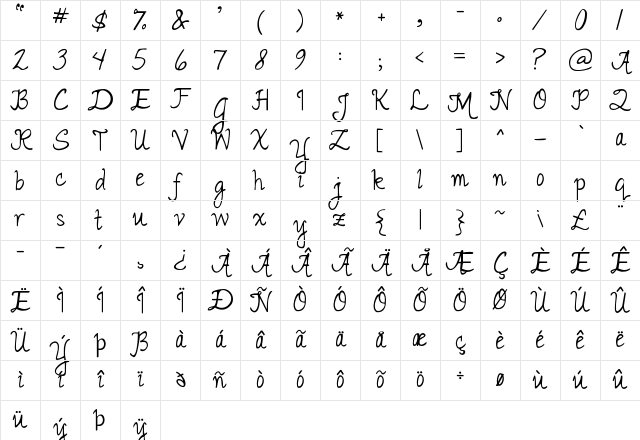
Janda Romantic Regular
Foundry: Kimberly Geswein
Designer: Kimberly Geswein
Design Context for Janda Romantic
Janda Romantic is a composed and adaptable typeface that performs quietly and consistently across a wide range of design contexts.
Pro Tip: Use Janda Romantic in both headline and body roles to test its range before committing to a single application.